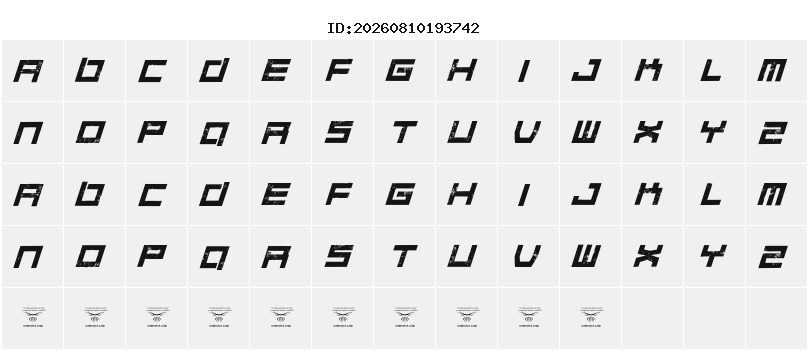
Quaaludes Preview
• Font Name: Quaaludes
• Designer: Chris Vile
• Manufacturer: Font Monger
• Description: Quaaludes Italic is a font by Font Monger, designed by Chris Vile in 2015.
About Quaaludes.otf
Quaaludes.otf is a modern, elegant sans-serif font designed for ultimate readability and visual harmony. Perfect for branding, headlines, web design, and print materials.